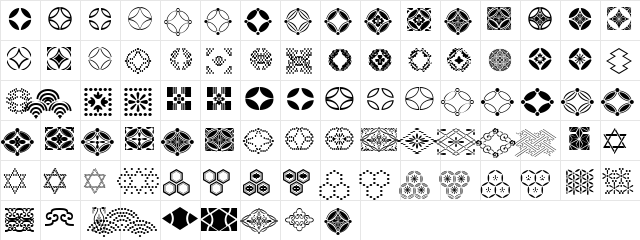
SevenTreasuresOrnamentsITC Medium
Design Context for SevenTreasuresOrnamentsITC Typeface
SevenTreasuresOrnamentsITC brings ornamental detail and strong personality to headlines and identities, where visual impact matters more than quiet functionality.
Font Pairing: Pair with a clean neutral sans-serif for body copy to let SevenTreasuresOrnamentsITC's character lead without overwhelming the composition.
Pro Tip: Treat SevenTreasuresOrnamentsITC as the centrepiece of your typographic hierarchy. One strong heading set in a decorative face can carry an entire layout.